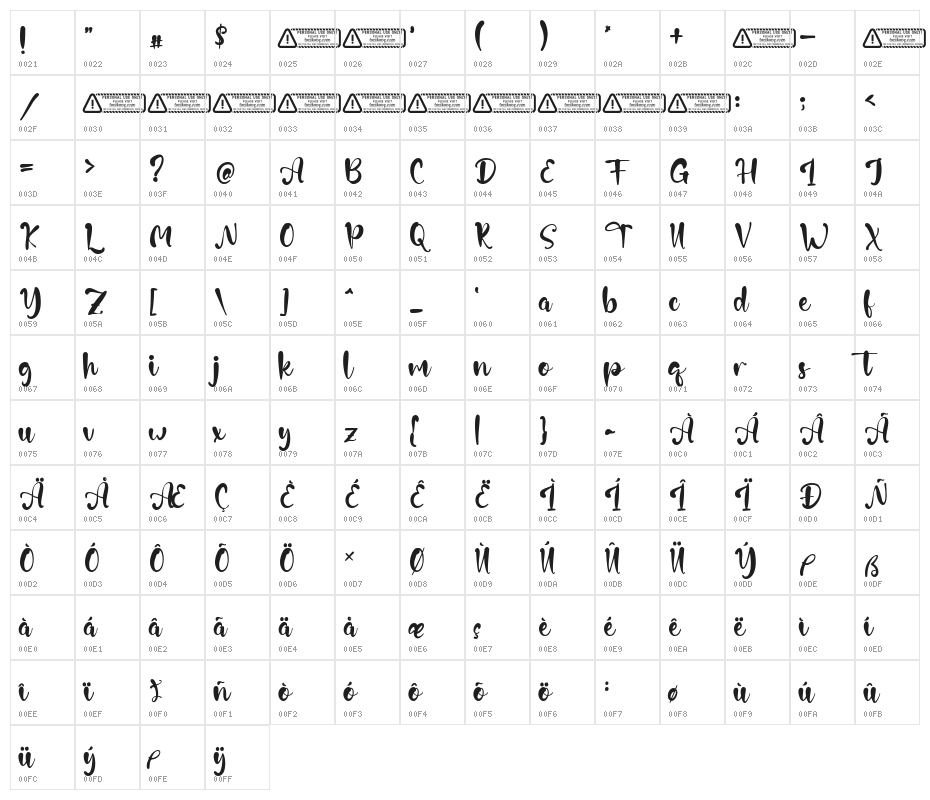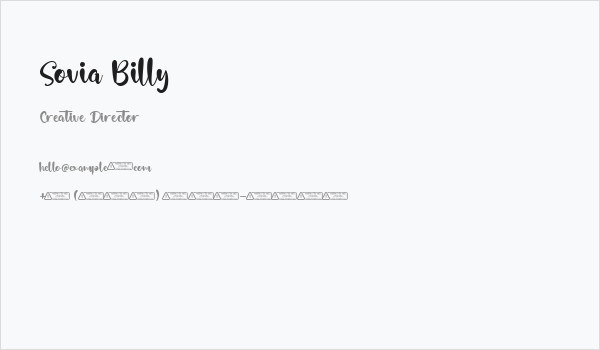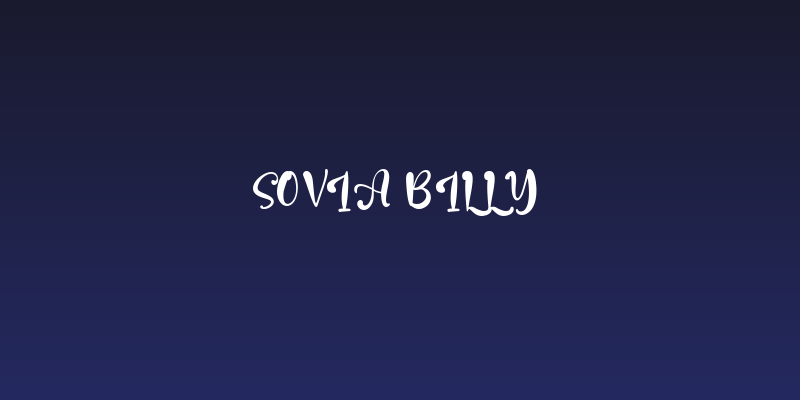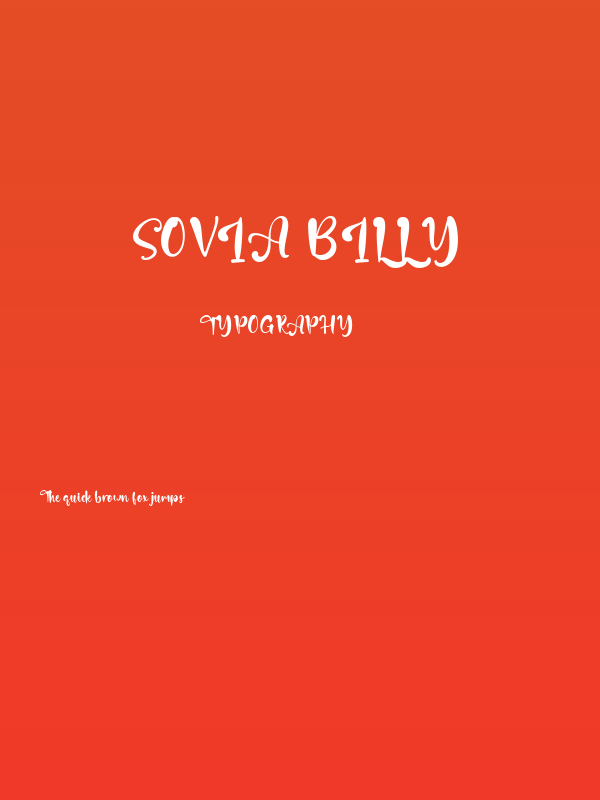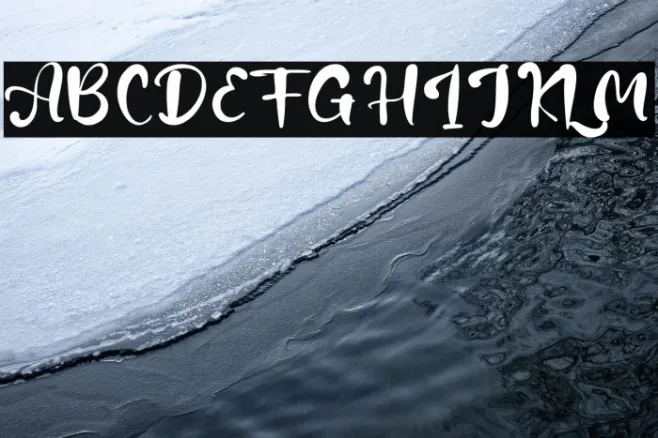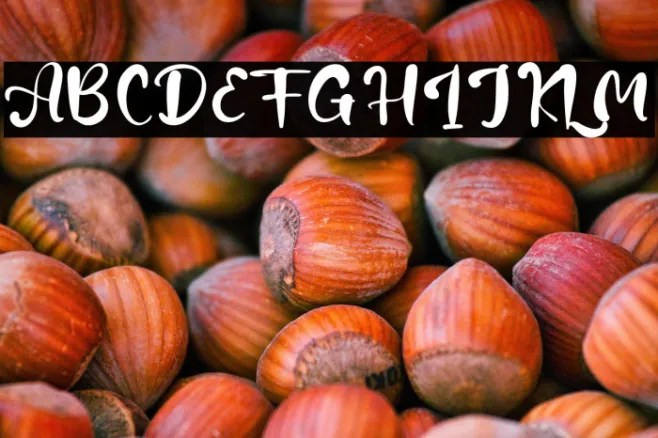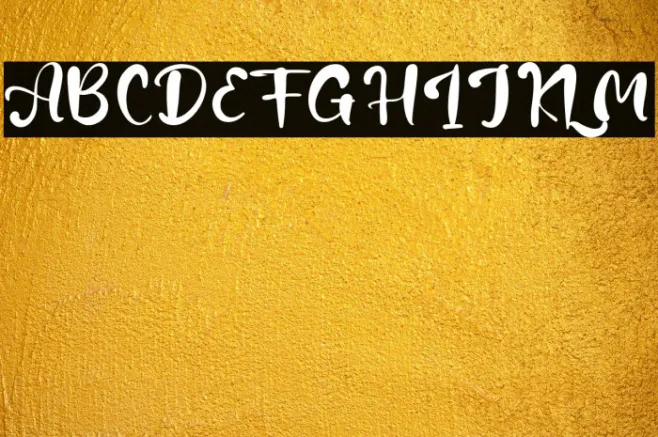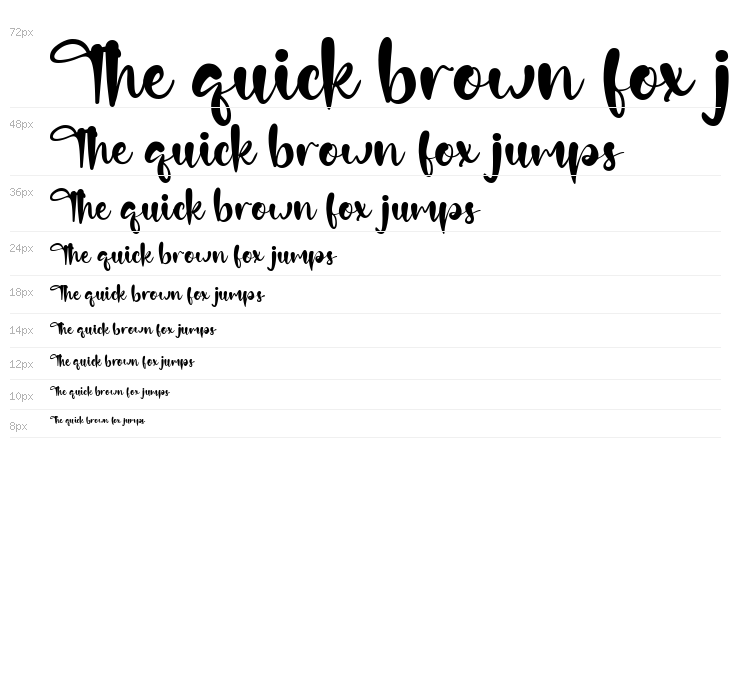
Sovia Billy Font
Sovia Billy Description
This font features a bold and expressive script style with a hand-drawn appearance. The uppercase letters are characterized by sweeping curves and flourishes, giving them a dynamic and artistic feel. The lowercase letters maintain a consistent flow, with some characters extending below the baseline, adding to the font's whimsical nature. The numbers and special characters are designed to match the playful and decorative style of the alphabet. Overall, the font exudes a sense of creativity and elegance, making it suitable for projects that require a personal and artistic touch.